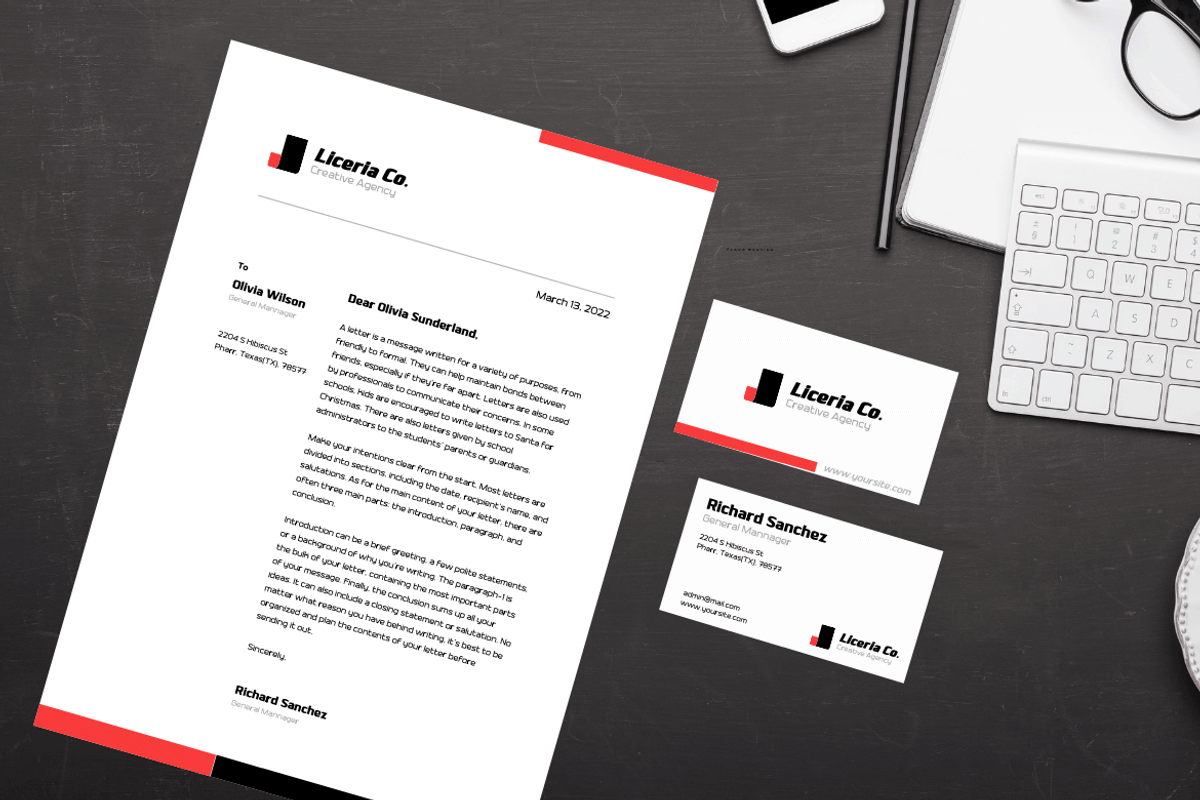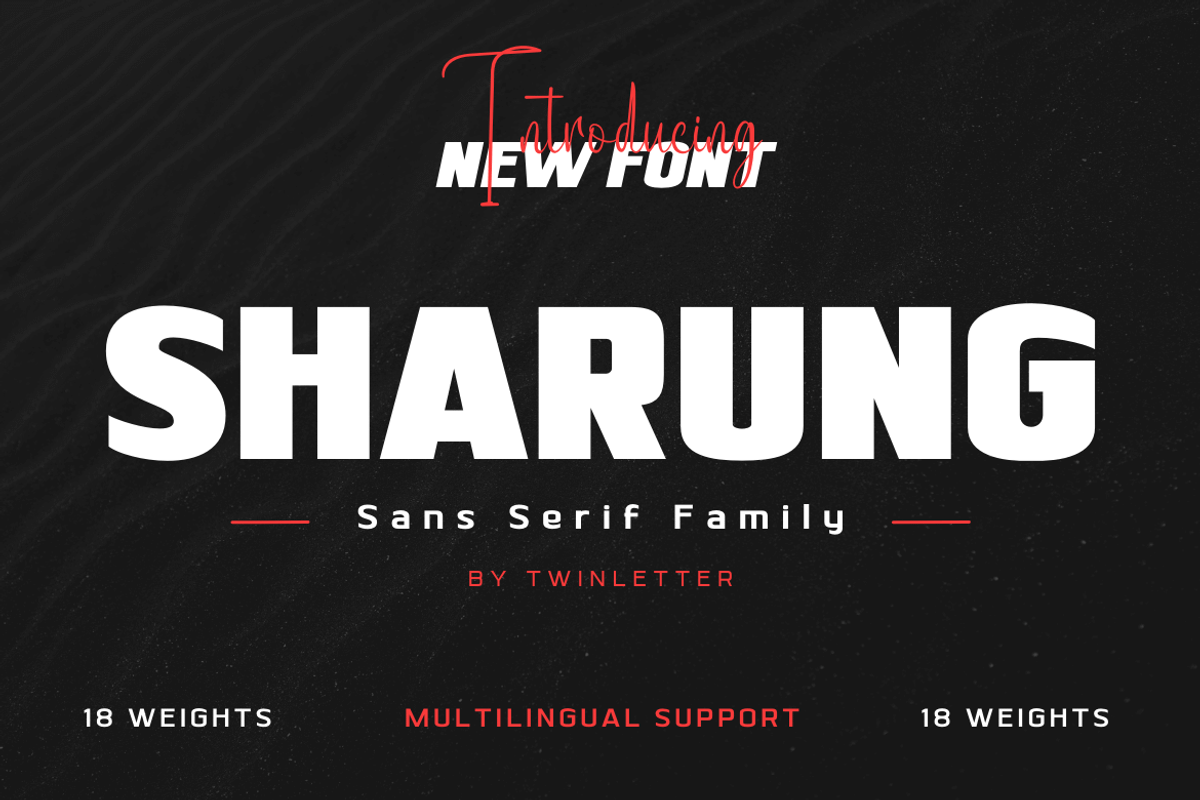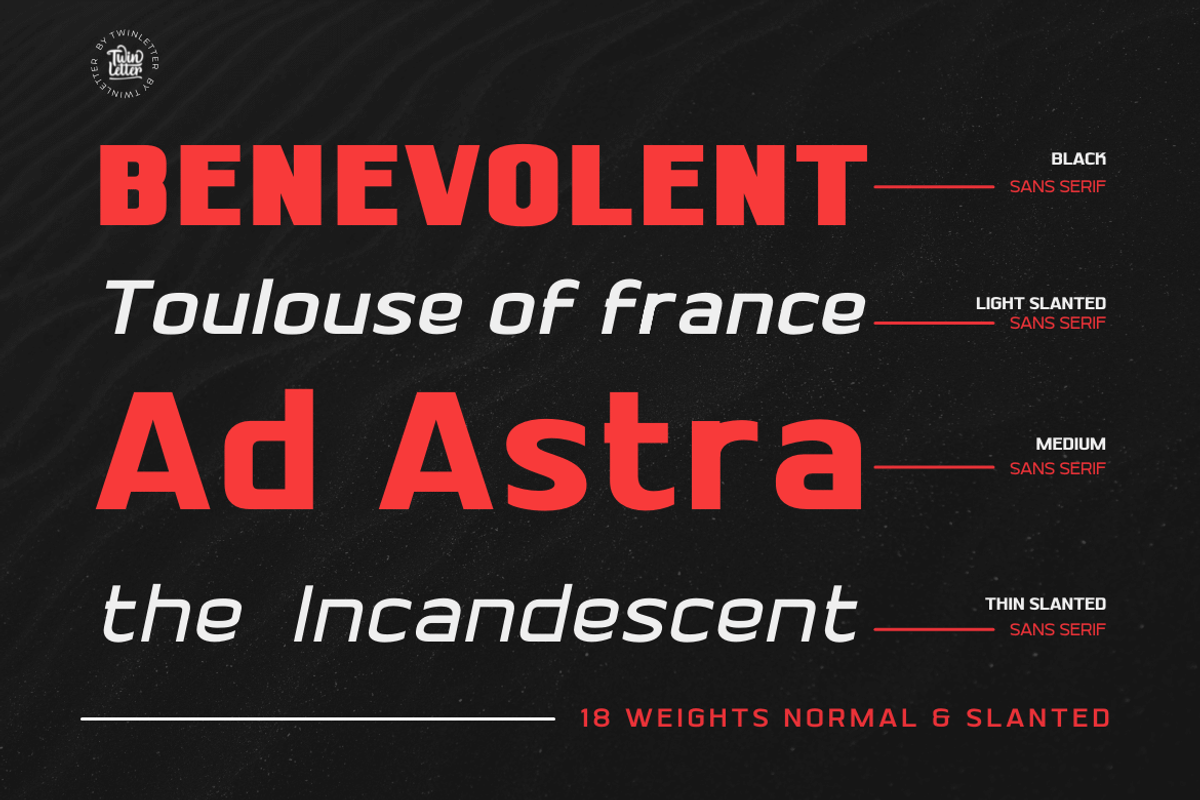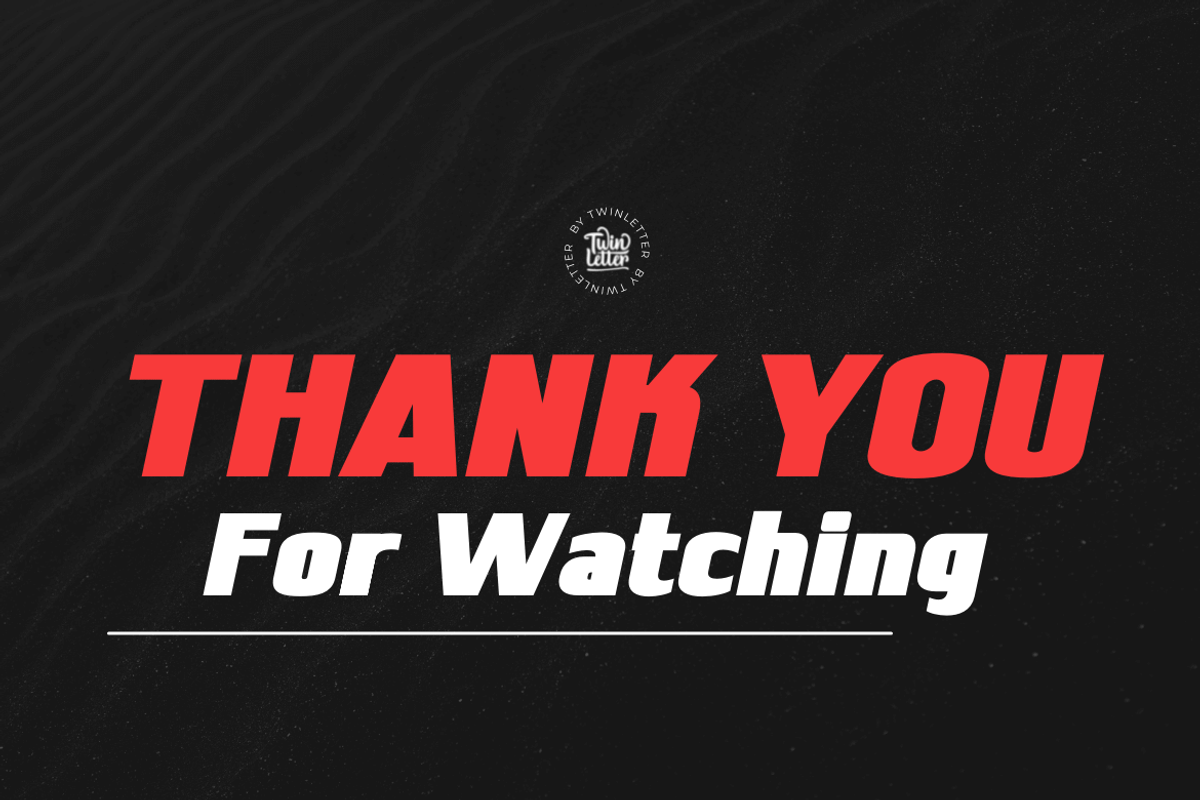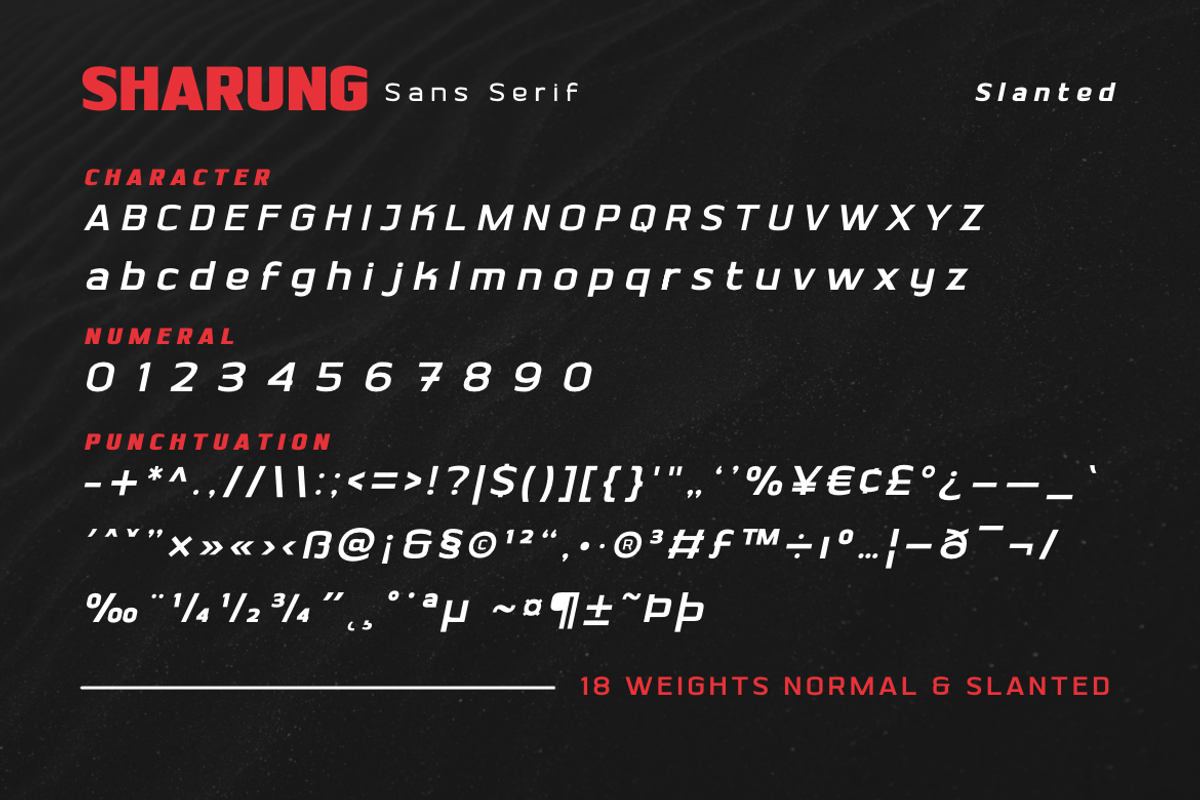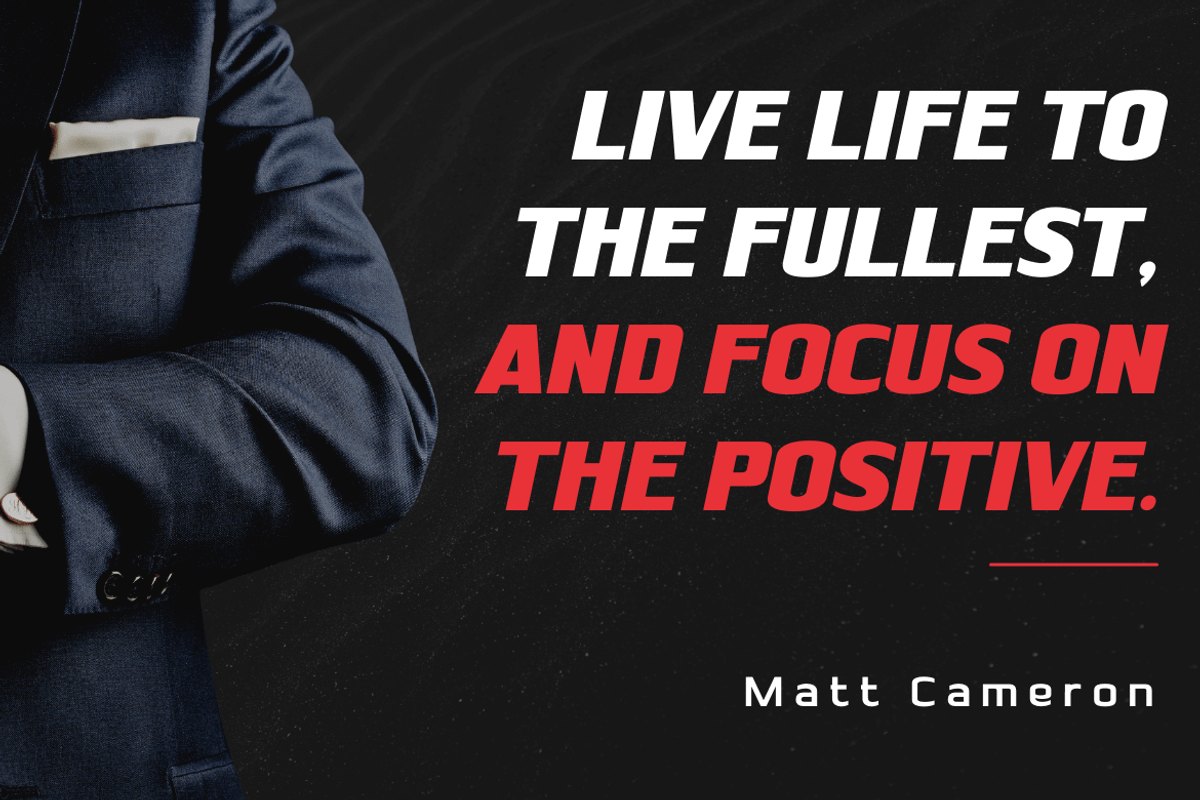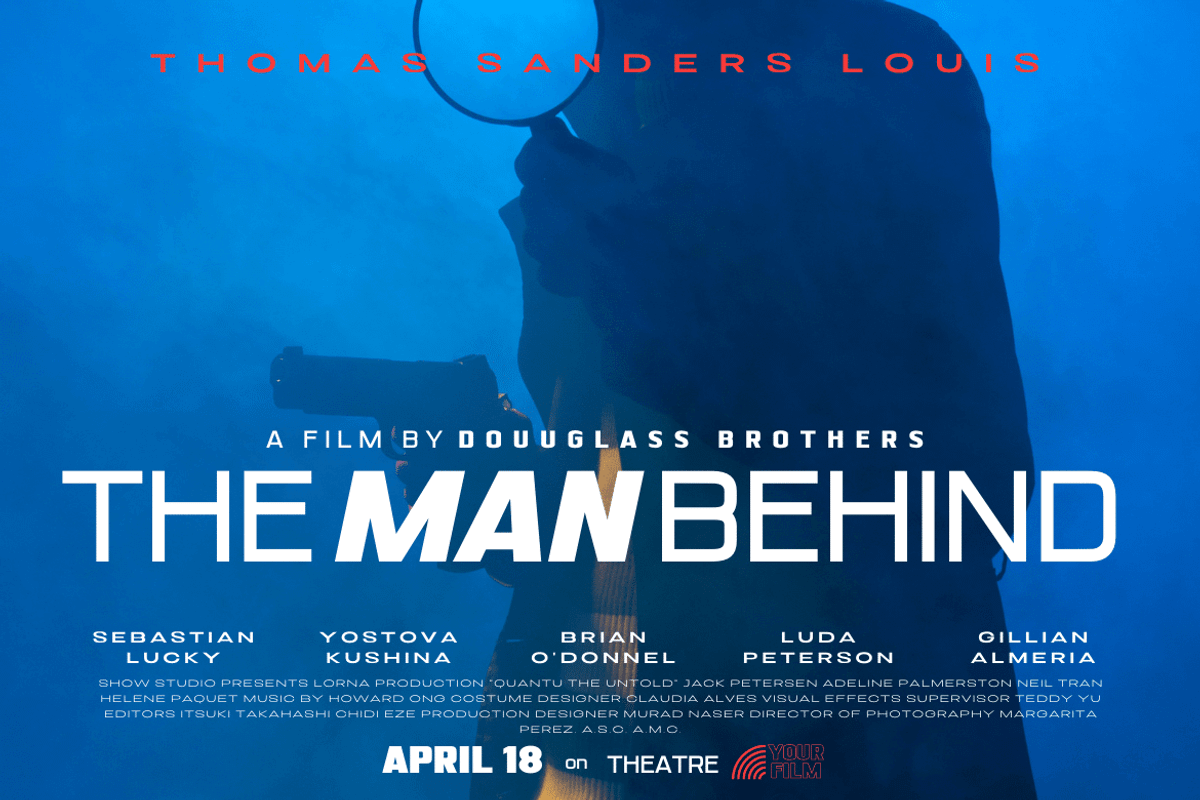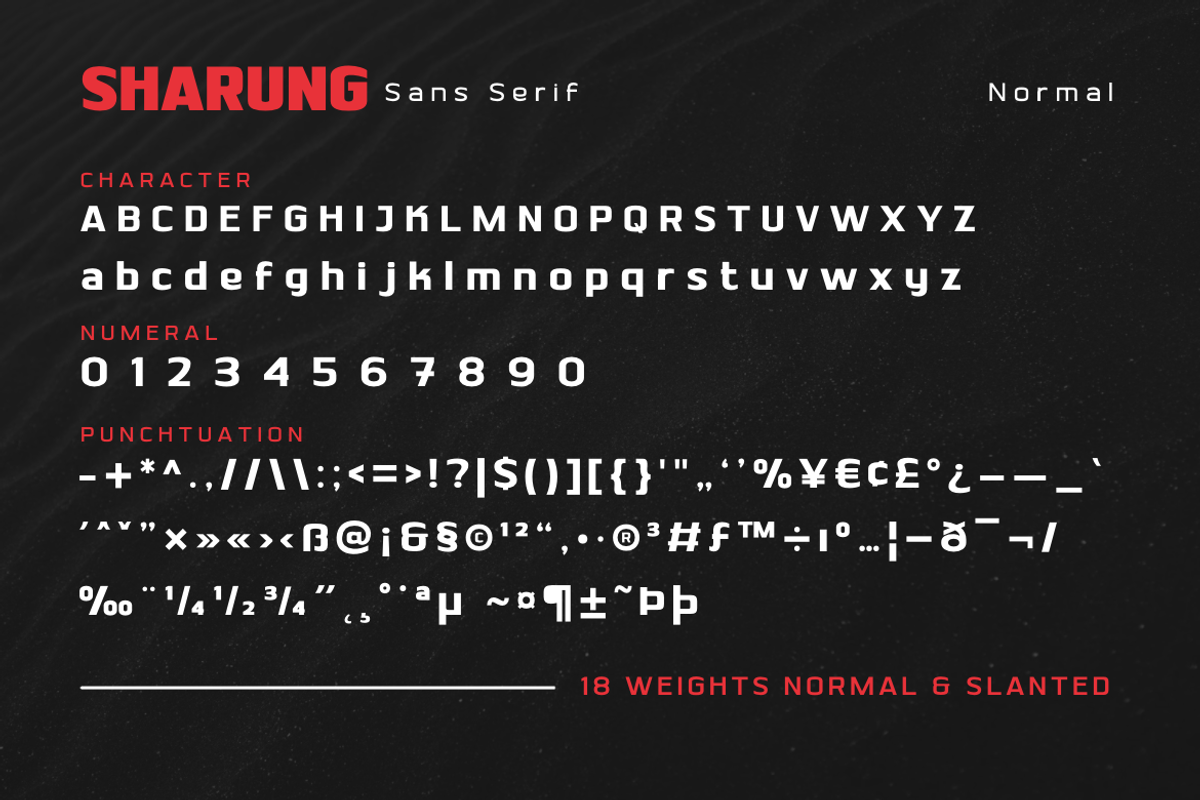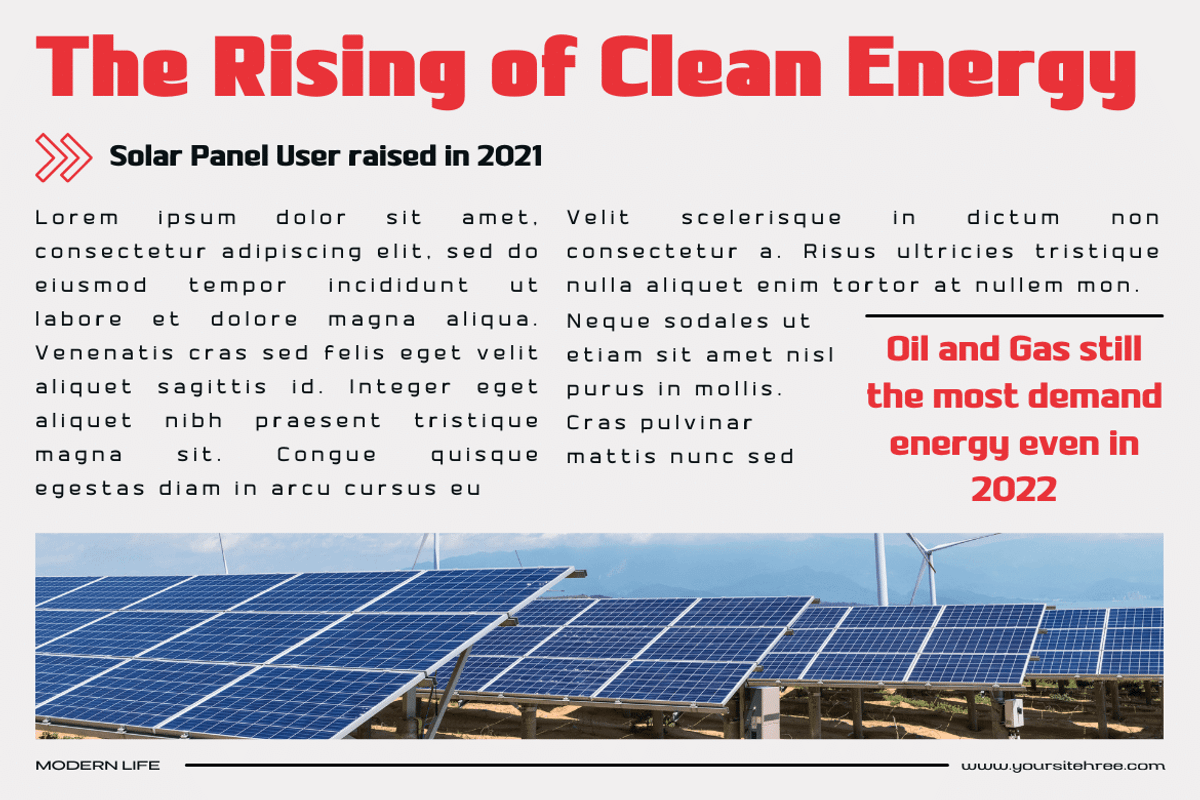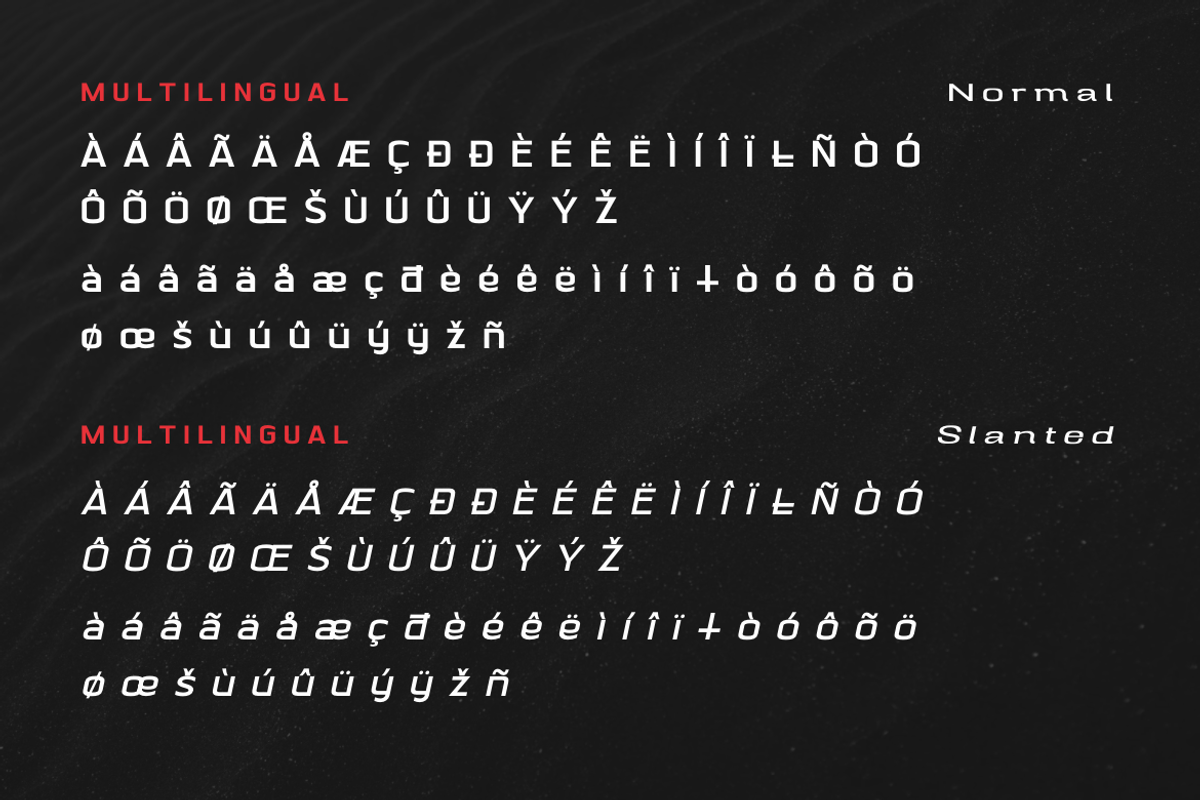
Sharung
Sharung, our newest font family, is now available! This font family is opulent and one-of-a-kind. This collection includes 18 various styles, making it ideal for a wide range of projects. Each style was built from the ground up to optimize beauty and personality. This font was created specifically for a wide range of display design and branding requirements. Sharung has everything you’ll need to create stunning graphics, including titles, texts, banners, posters, and more. Get a unique design look with this font right now!
of course, your various design projects will be perfect and extraordinary if you use this font because this font is equipped with a font family, both for titles and subtitles and sentence text, start using our fonts for your extraordinary projects.